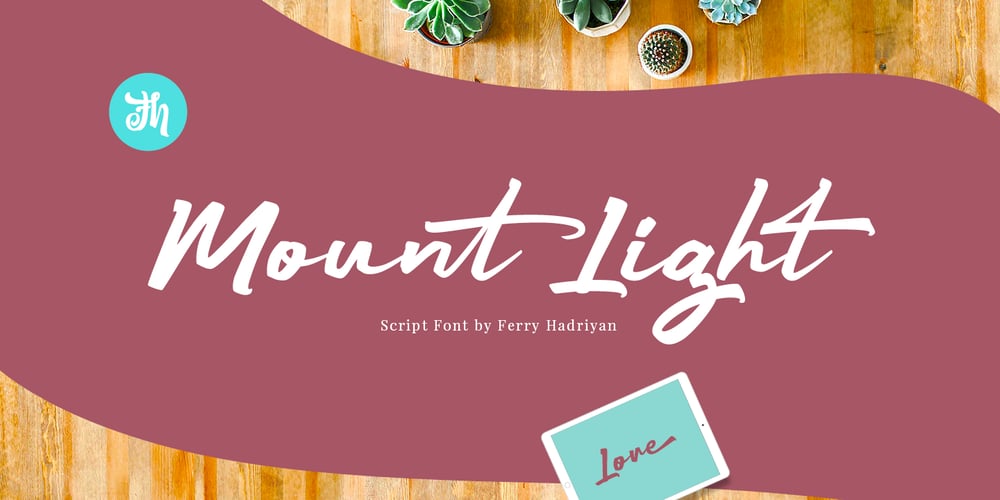
Mount Light Font Family was designed by Ferry Hadriyan and published by FHFont. Mount Light contains 1 styles and family package options. Mount Light is script font with authentic calligraphy style, with opentype feature include of the font. Suitable for design, element design, wedding, event, t-shirt, logo, badges, sticker, and awesome work.